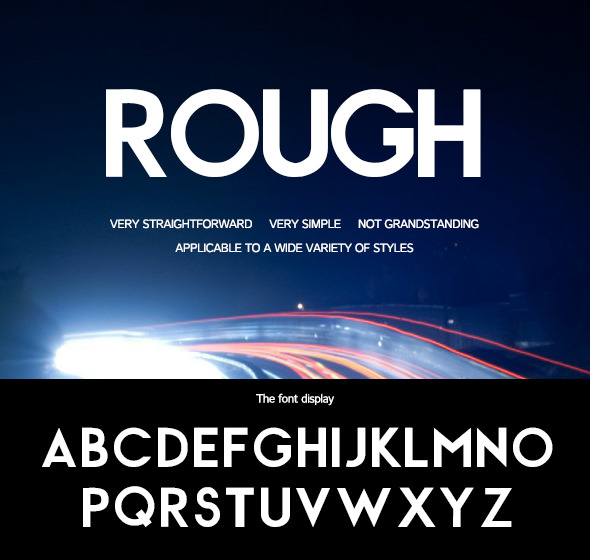
Rough-Rough strokes of the font
When zombies arrive, quickly fax judge Pat.It is suitable for a wide variety of styles.Suitable for: Web design,Graphic Design,Posters,Concert,Goods,Magazine, etc. It is very cool It is suitable for making logo